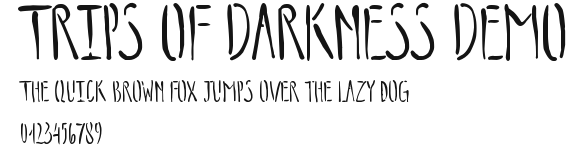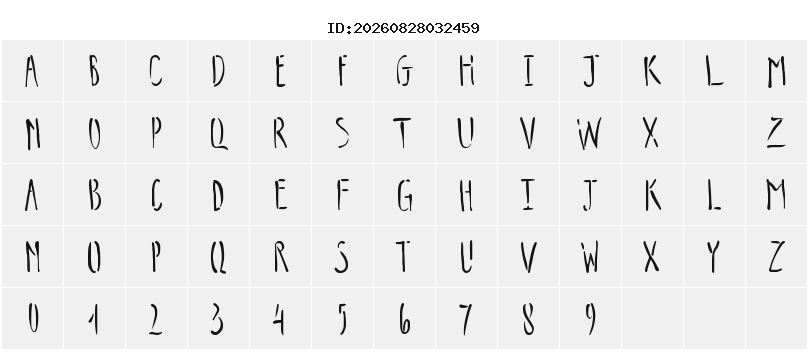
Trips of Darkness Demo Preview
• Font Name: Trips of Darkness Demo
• Full Font Name: Trips of Darkness Demo
• Designer: Le Thi Thu Huong
About Trips of Darkness Demo.ttf
Trips of Darkness Demo.ttf is a modern, elegant sans-serif font designed for ultimate readability and visual harmony. Perfect for branding, headlines, web design, and print materials.